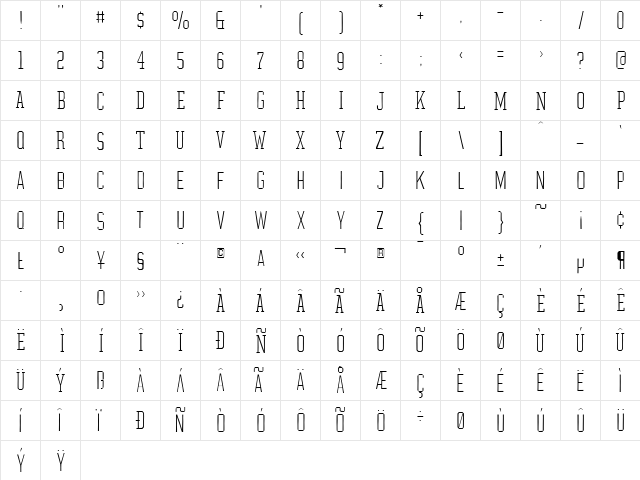
Graphium Thin
| Foundry | YouWorkForThem |
| Designer | Michael Cina |
Design Context for Graphium Typeface
Graphium takes a measured approach to typography — its balanced proportions and neutral character make it a reliable workhorse for both digital and print work. The delicate stroke weight brings airiness and refinement to layouts.